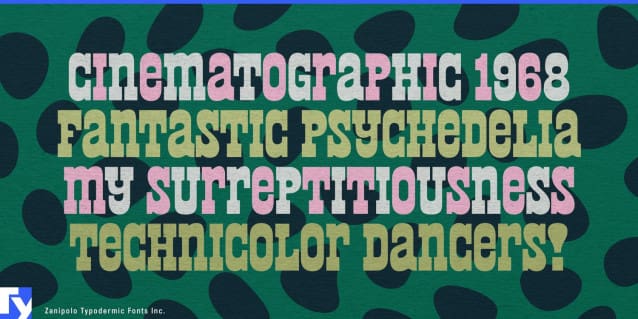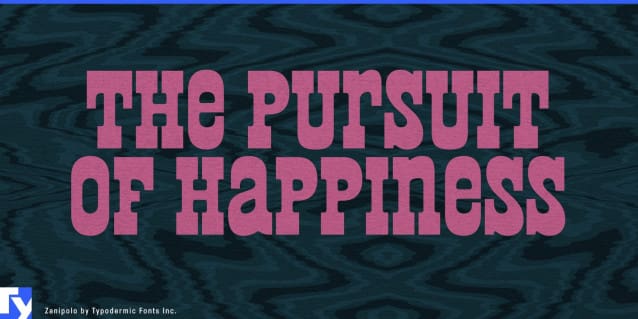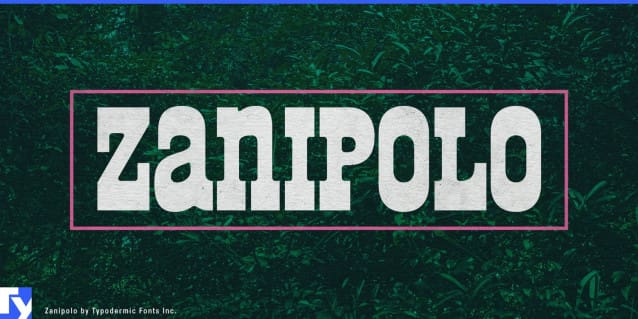
Zanipolo Font
Zanipolo Font, a distinctive typeface from Typodermic Fonts that channels the vibrant essence of the 1960s with a modern twist. This all-caps, inverse-slab serif unicase typeface draws its inspiration from the obscure Italienne from Fonderie Typographique Française, a revival of an early 19th century font that saw a resurgence during the psychedelic era.
Zanipolo Font is not just a font; it’s a design statement. While inverse slab typefaces often evoke images of circuses and cowboys, Zanipolo breaks the mold with its clean, austere lines that project an Italian elegance. The unicase design adds a touch of the 1960s’ psychedelic spirit but maintains a polished and refined appearance. Its soft inside corners paired with sharp outside corners give Zanipolo a voice that is both warm and orderly, making it the perfect choice for fashion-forward themes and sophisticated layouts.
Compact and tightly spaced, Zanipolo excels in making the most of space without sacrificing style. It’s ideal for squeezing bold statements into headlines and logos, where its character can truly shine. The typeface invites designers to experiment with fancy and vibrant color schemes to enhance its visual impact.
Whether you’re crafting the next great fashion campaign, designing a standout logo, or creating eye-catching headlines, it is designed to make a statement. Let Zanipolo Font bring a piece of Italian flair and 1960s psychedelia to your creative projects, blending historical inspiration with contemporary charm for unforgettable designs.